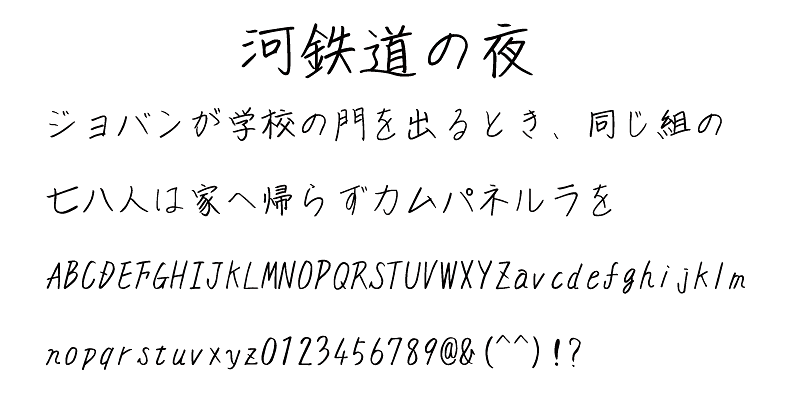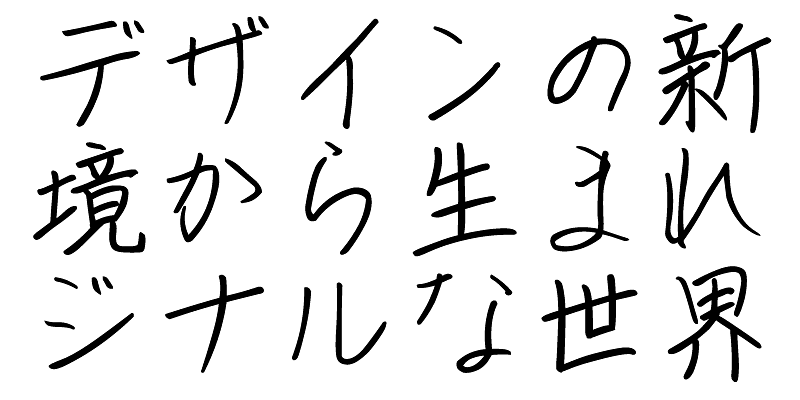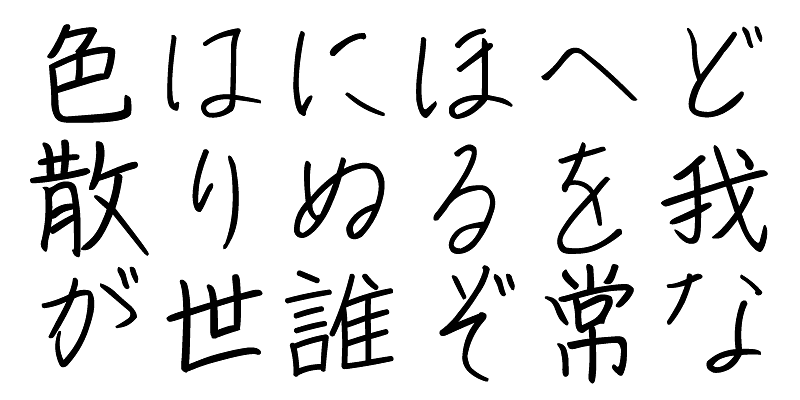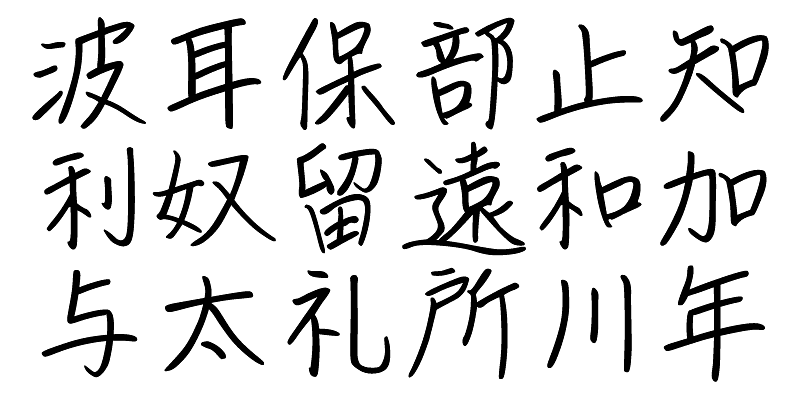
Tegakiya Honpo
This series of fonts contains original hand-written Japanese typefaces based on pen calligraphy released in 2002. With a warm-hearted look, these fonts will draw the reader’s eye to key points of a design.